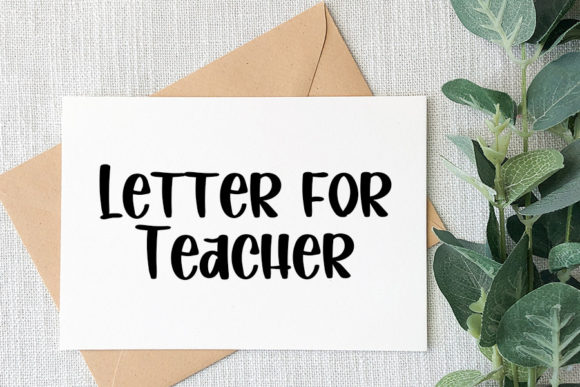
Diary School Font
db-ku.com - Script & Handwritten -- Diary School is a sweet and friendly handwritten font. Its natural and unique style makes it incredibly fitting to a large pool of designs. The only limit is your imagination!